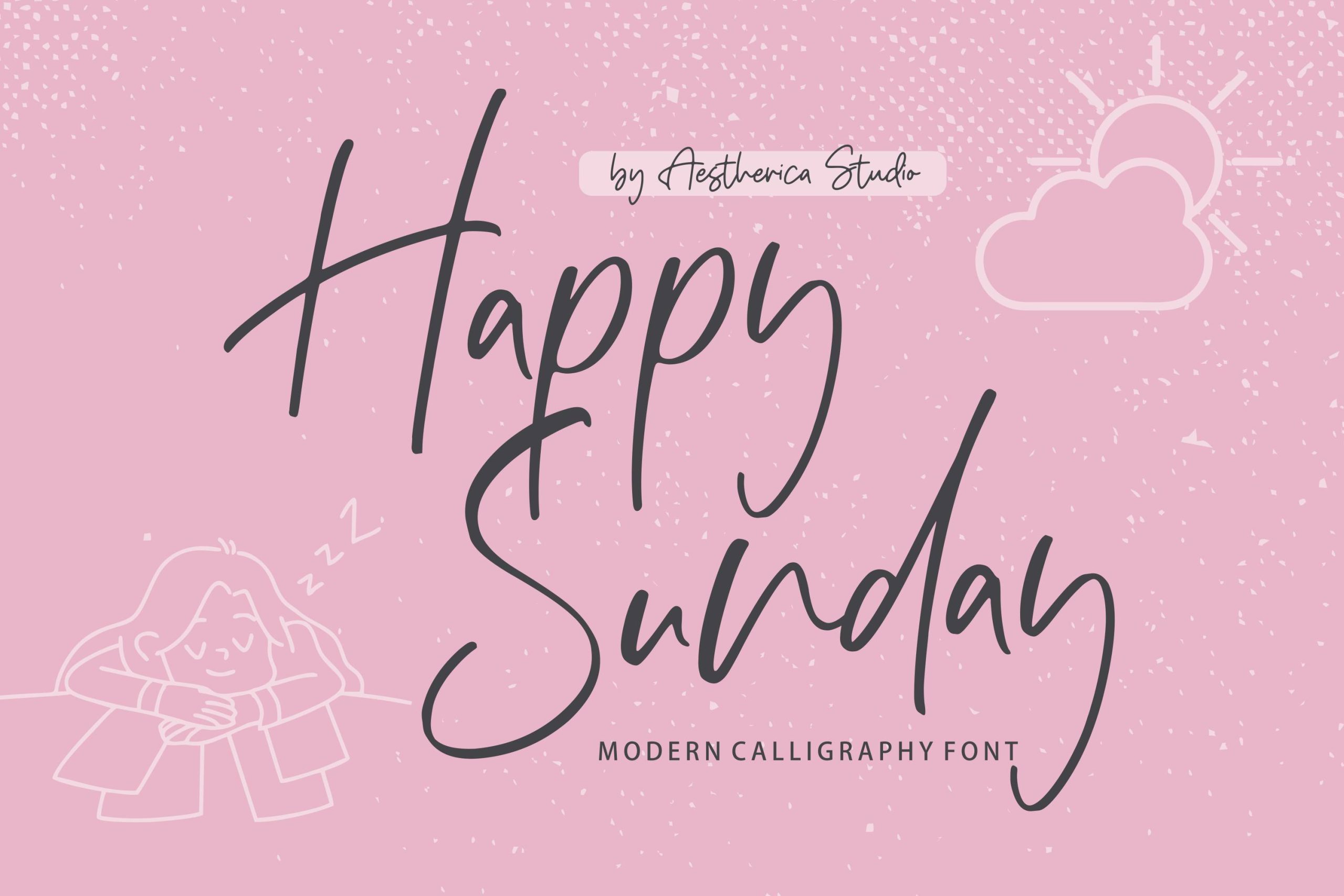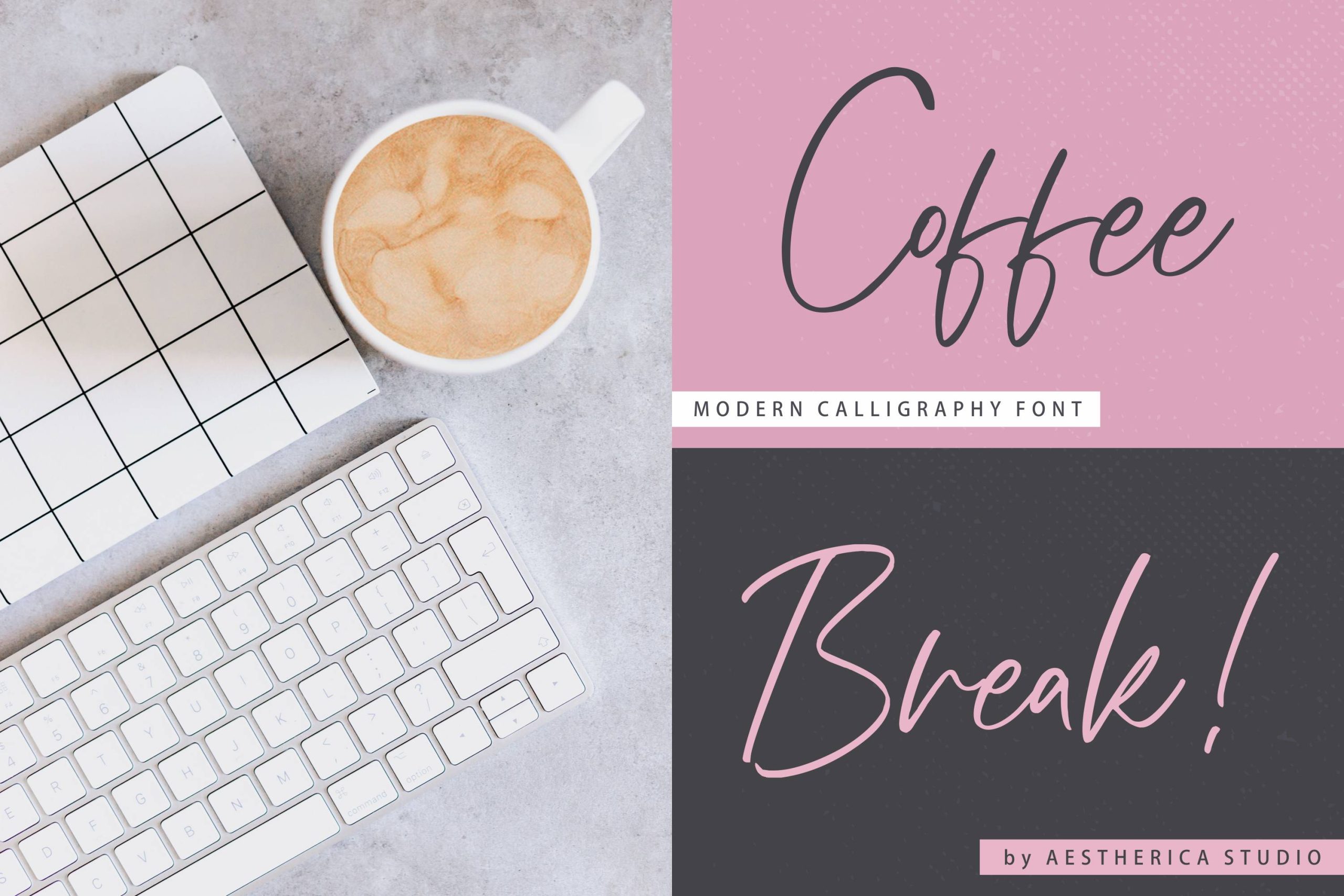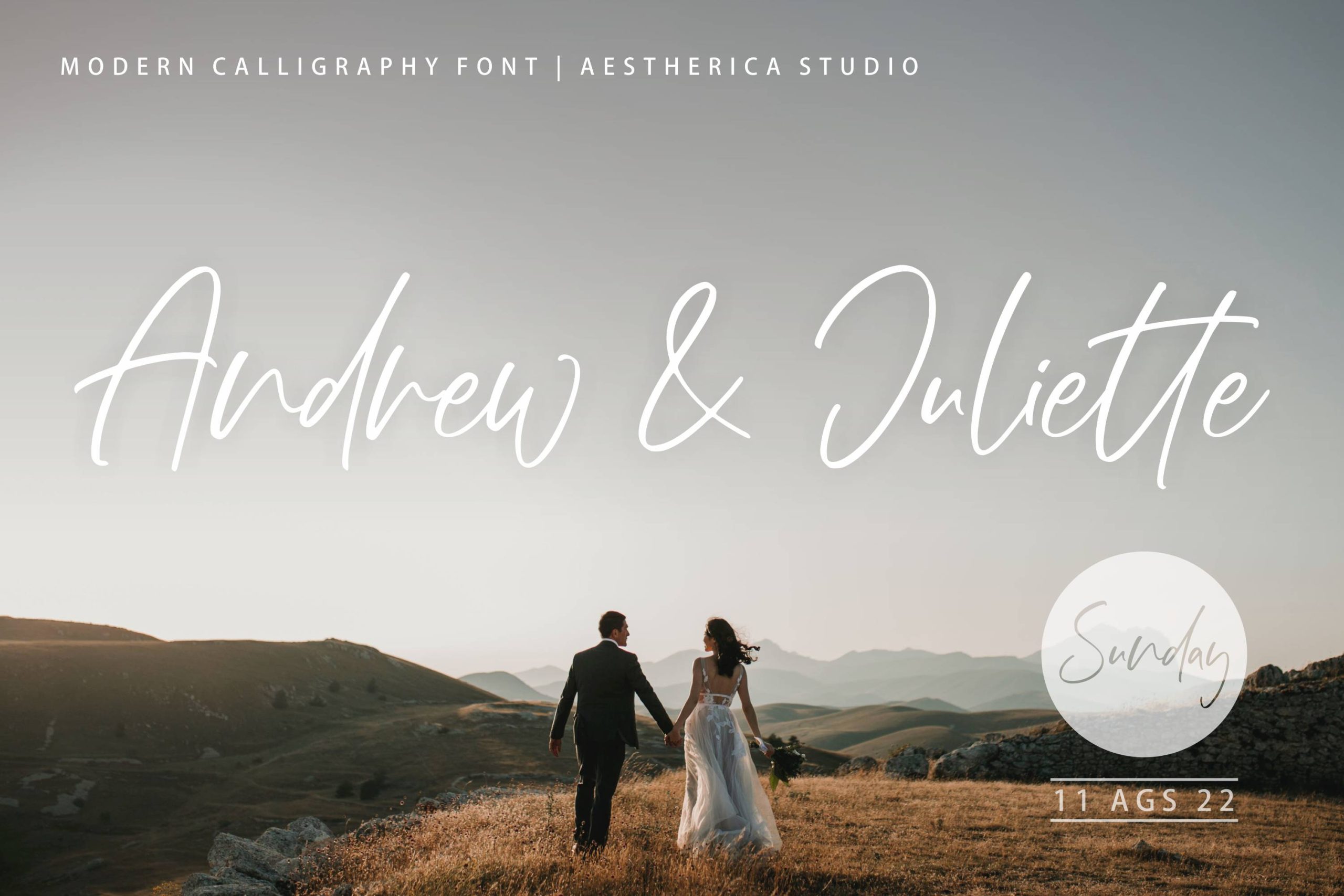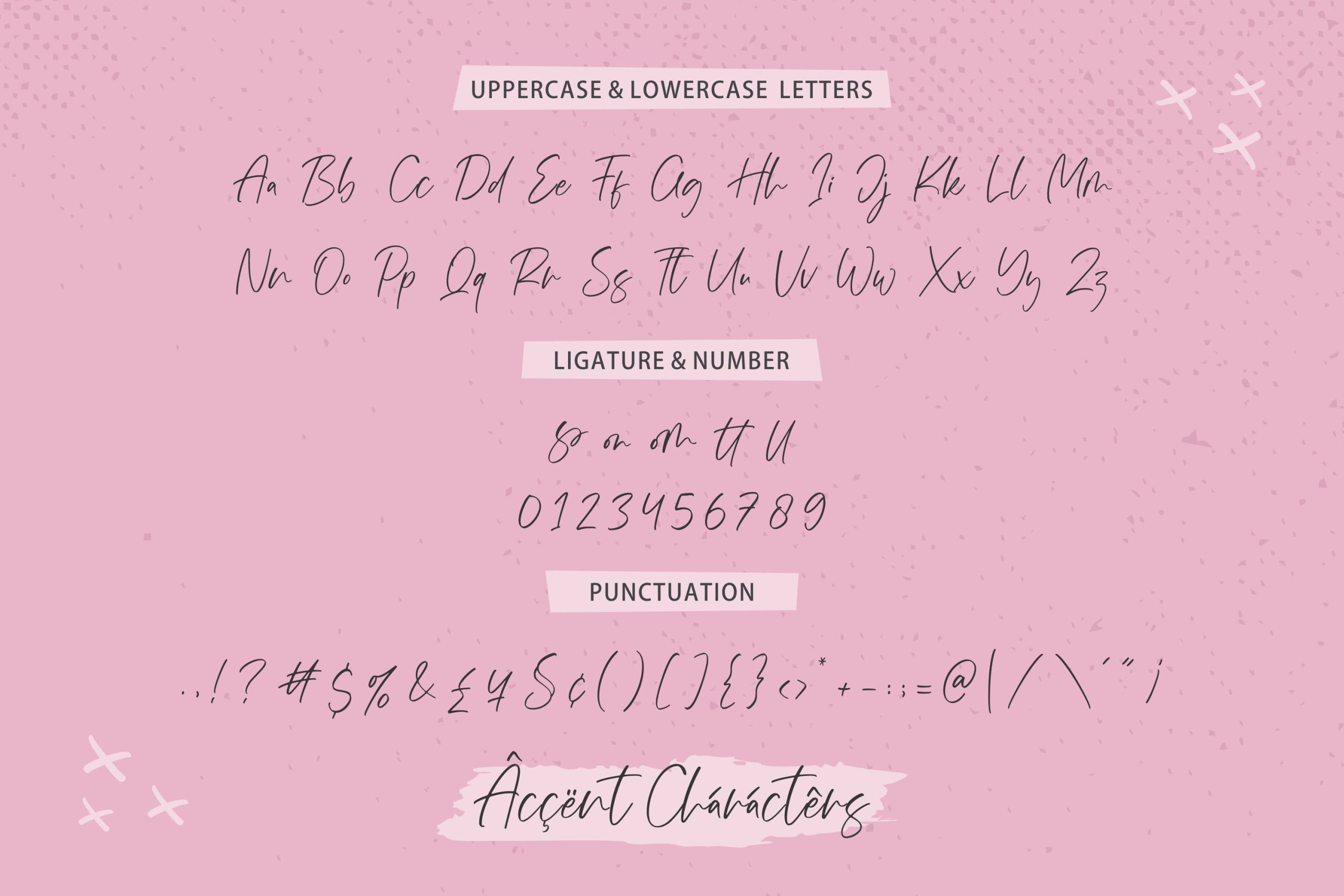
Rusticate Font
Rusticate Handwritten Font
This is a modern calligraphy font with authentic and casual feels. It will be perfectly used for Branding, logo design, lettering, logotype, clothing, poster, magazine, packaging, posters, shopping bags, t-shirts, book covers, photography, special events, and other design projects.
AesthericaStudio